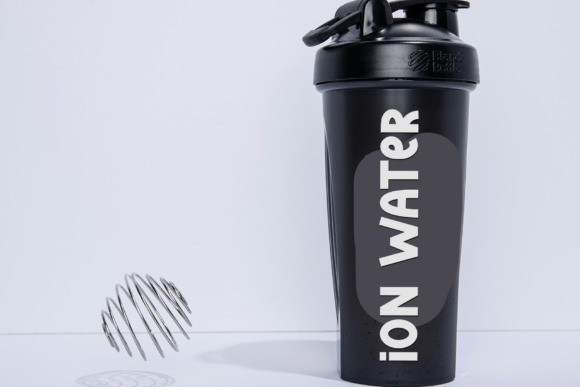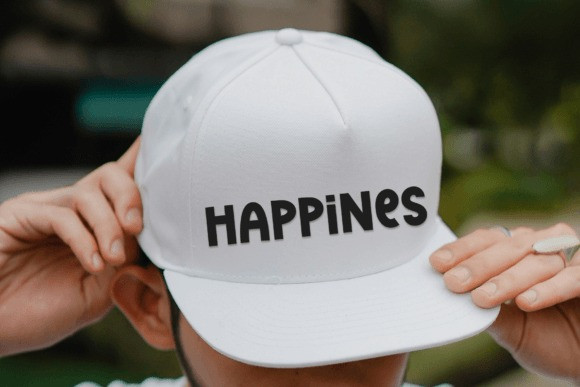
Simple Character Font
Simple Character Font is a fun and lively script font with smooth, flowing letters. It feels playful and friendly, perfect for creative projects like invitations, posters, or logos. Its casual style adds a personal, cheerful touch to any design!